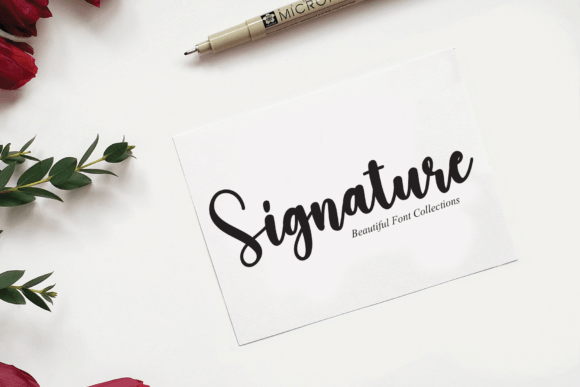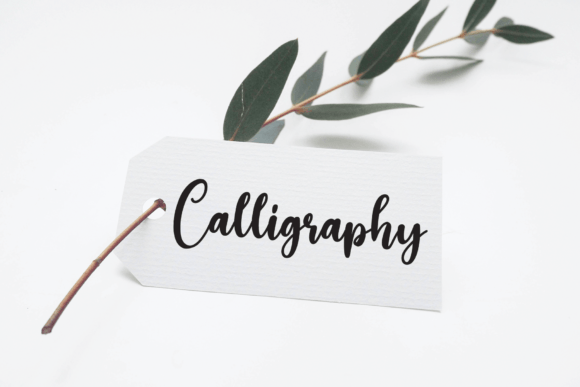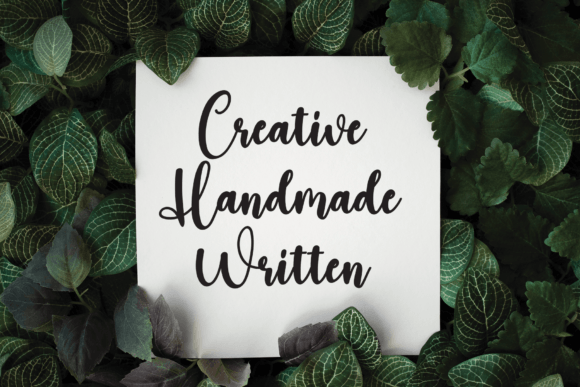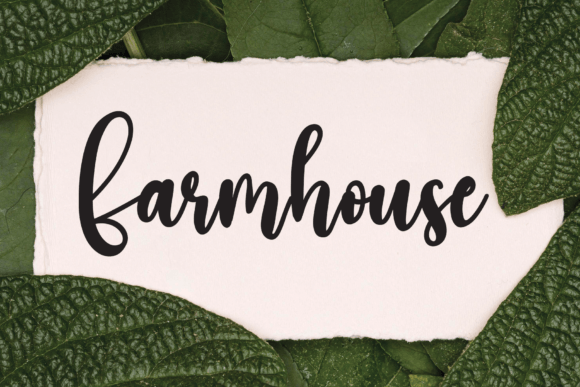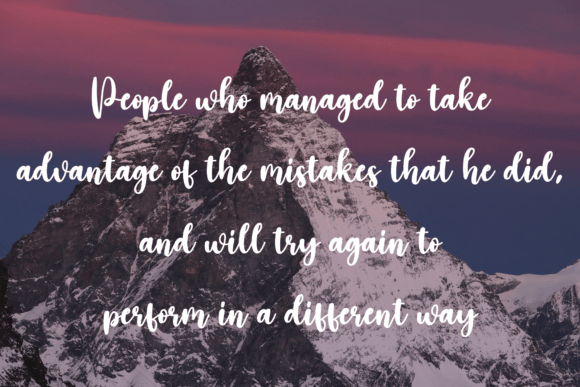
About Paradise Font
“Paradise” is not just a font; it’s a beautiful script font that combines a modern and unique shape with a natural writing style. This font is a versatile tool that allows you to create many beautiful typographic designs instantly, making it suitable for various applications such as branding, web design, editorial work, prints, crafts, and quotes.
The modern and unique shape of “Paradise” sets it apart, providing a fresh and contemporary feel to your designs. Its writing style is not only distinctive but also natural, making it a perfect choice for creating visually appealing and authentic typographic compositions.
This font is a valuable asset for a range of design projects. Whether you’re working on logotypes, wedding invitations, romantic cards, labels, packaging, or crafting quotes, “Paradise” adds a touch of elegance and style. Its versatility extends to the spelling of names and other personalized elements, making it a go-to choice for projects that demand a blend of creativity and sophistication.
As you integrate “Paradise” into your creative ideas, you’ll witness how it brings them to life with a sense of charm and visual appeal. Whether you’re a designer working on professional projects or an enthusiast exploring your creativity, “Paradise” offers a canvas for your most imaginative ideas to flourish.
In summary, “Paradise” is a font that goes beyond mere letters; it’s a creative tool that enhances your designs with beauty and uniqueness. Add it to your repertoire and watch as it transforms your most creative ideas into captivating and visually stunning works.